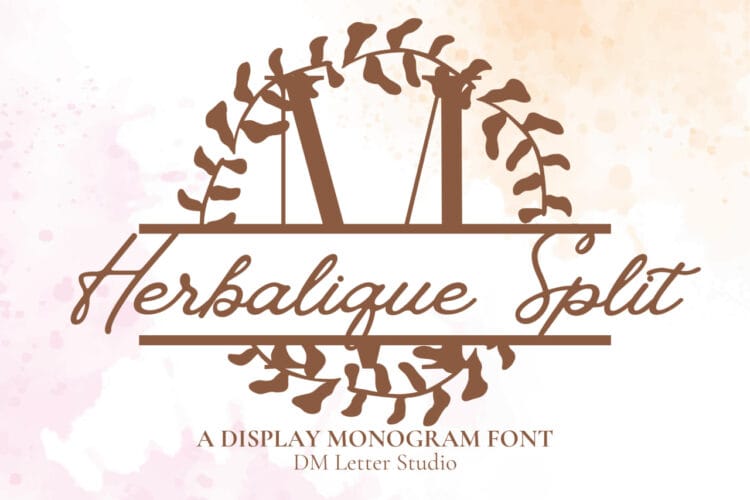
Meet Herbalique Split Monogram Font
Herbalique Split Monogram turns simple initials into calm, botanical emblems with a clean center split for names or dates. Inspired by herbs, leaves, and natural balance, the letterforms feel soft and organic while staying clear and readable at any size. Because counters remain open, small tags print crisp and larger marks look refined and intentional. Use it for wellness brands, apothecary labels, wedding suites, boutique logos, stationery, and premium packaging. As a result, your designs feel natural, personal, and thoughtfully crafted.
Fast layouts with the Herbalique Split Monogram Font
Start with a bold split initial and place it at the center of your layout. After that, add a family name, brand name, or date across the split using a simple supporting font if needed. Because Herbalique Split holds shape at small sizes, labels, jars, stickers, and tags stay clear. In addition, it pairs beautifully with wreath frames, oval borders, fine dividers, and subtle leaf accents, so full sets come together quickly. Finally, save palette pairs like sage & cream, olive & linen, charcoal & herbal green, or sand & moss to reuse across collections.
Creative uses and quick wins
Wellness and apothecary logo seals with names
Wedding initials with dates or surnames
Candle, soap, tea, and skincare packaging
Stationery, tags, and boutique gift labels
Design tips for Herbalique Split Monogram Font
Keep the center text short so the initial remains the hero. Also, give the monogram breathing room so organic details stay readable at small sizes. For a premium finish, try embossing, letterpress, or soft foil on textured stock. Finally, export at 300 DPI for print and at 2× size for web so edges stay smooth everywhere.